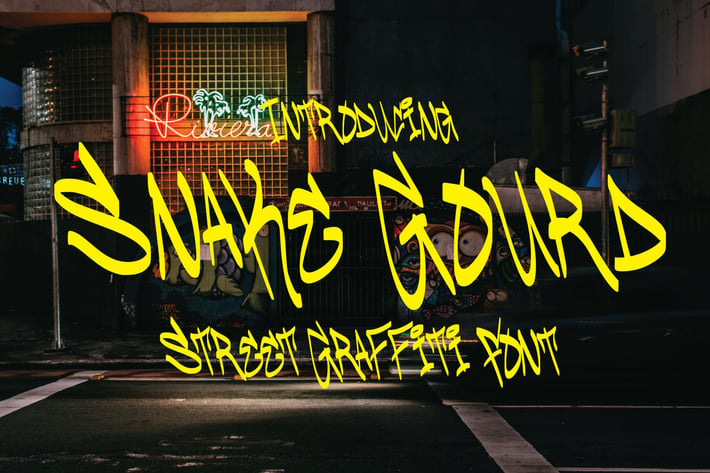
Snake Gourd - Graffiti Font
Snake Gourd Graffiti Font
Dive into the world of contemporary design with Circle Around Graffiti Font, a stylish Graffiti font that exudes a sleek and sophisticated vibe. With its seamless strokes and modern aesthetics, Circle Around Graffiti Font is the perfect choice for design projects that require a touch of minimalism and elegance.